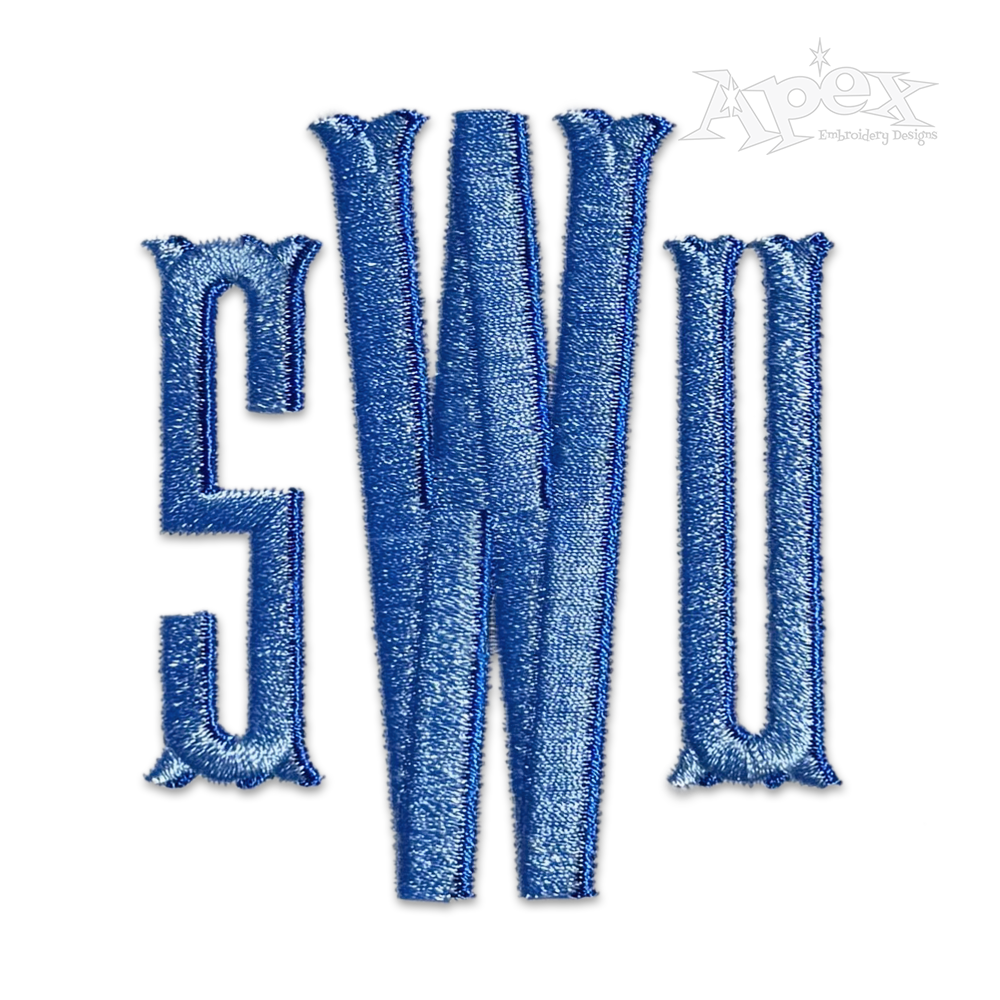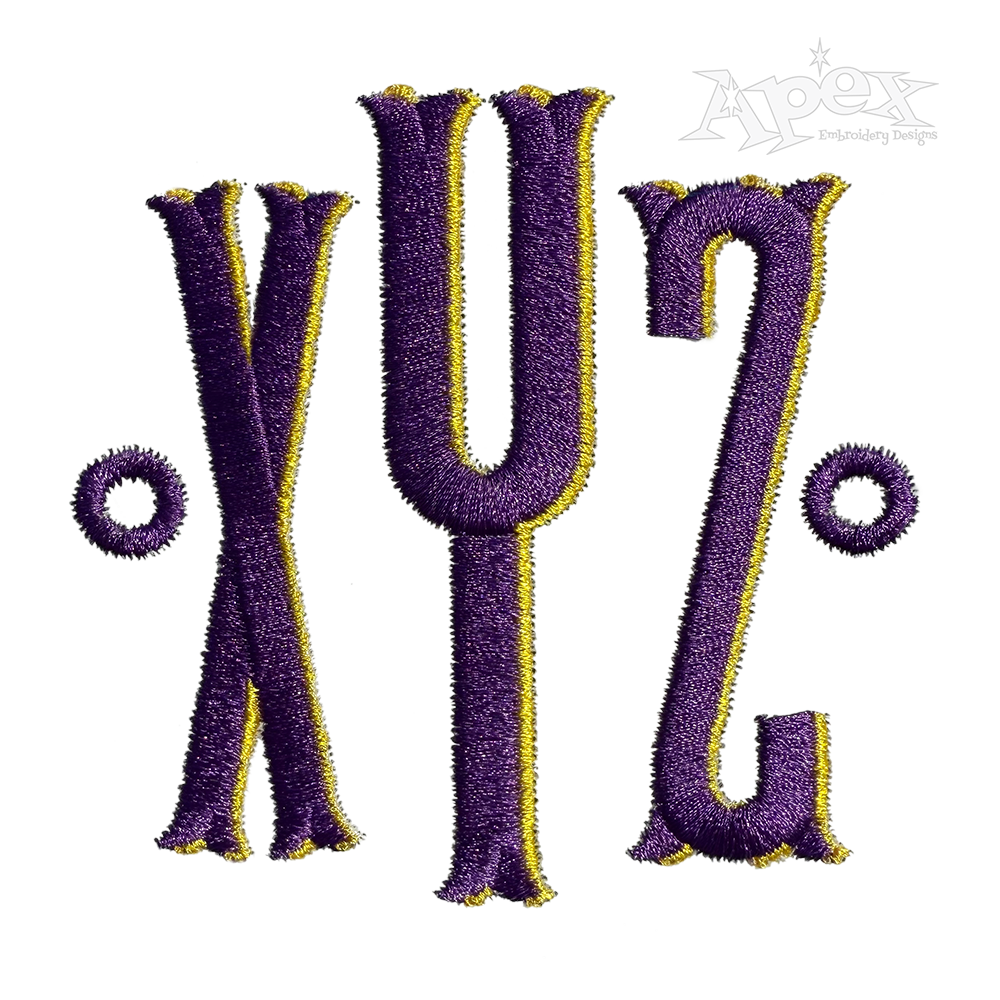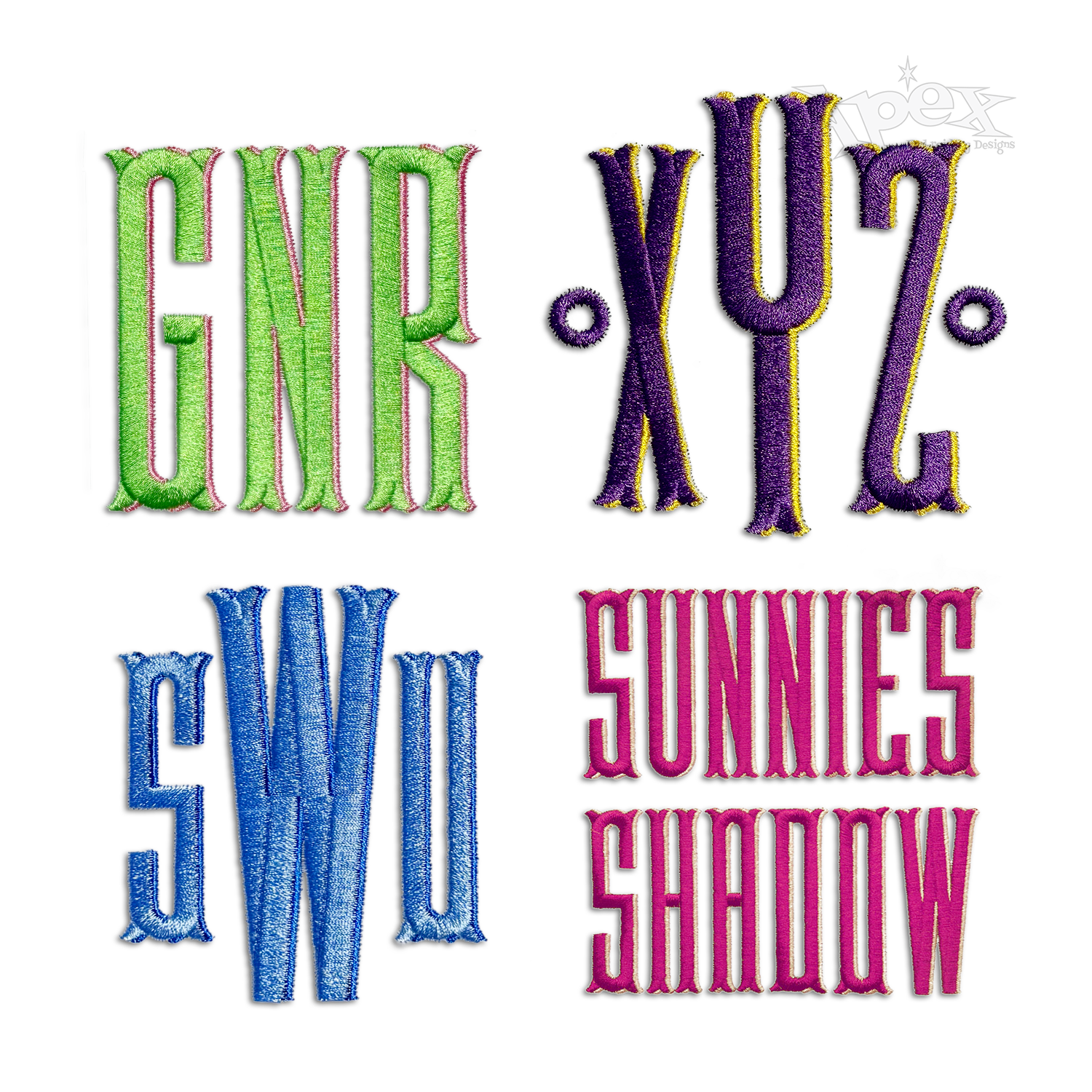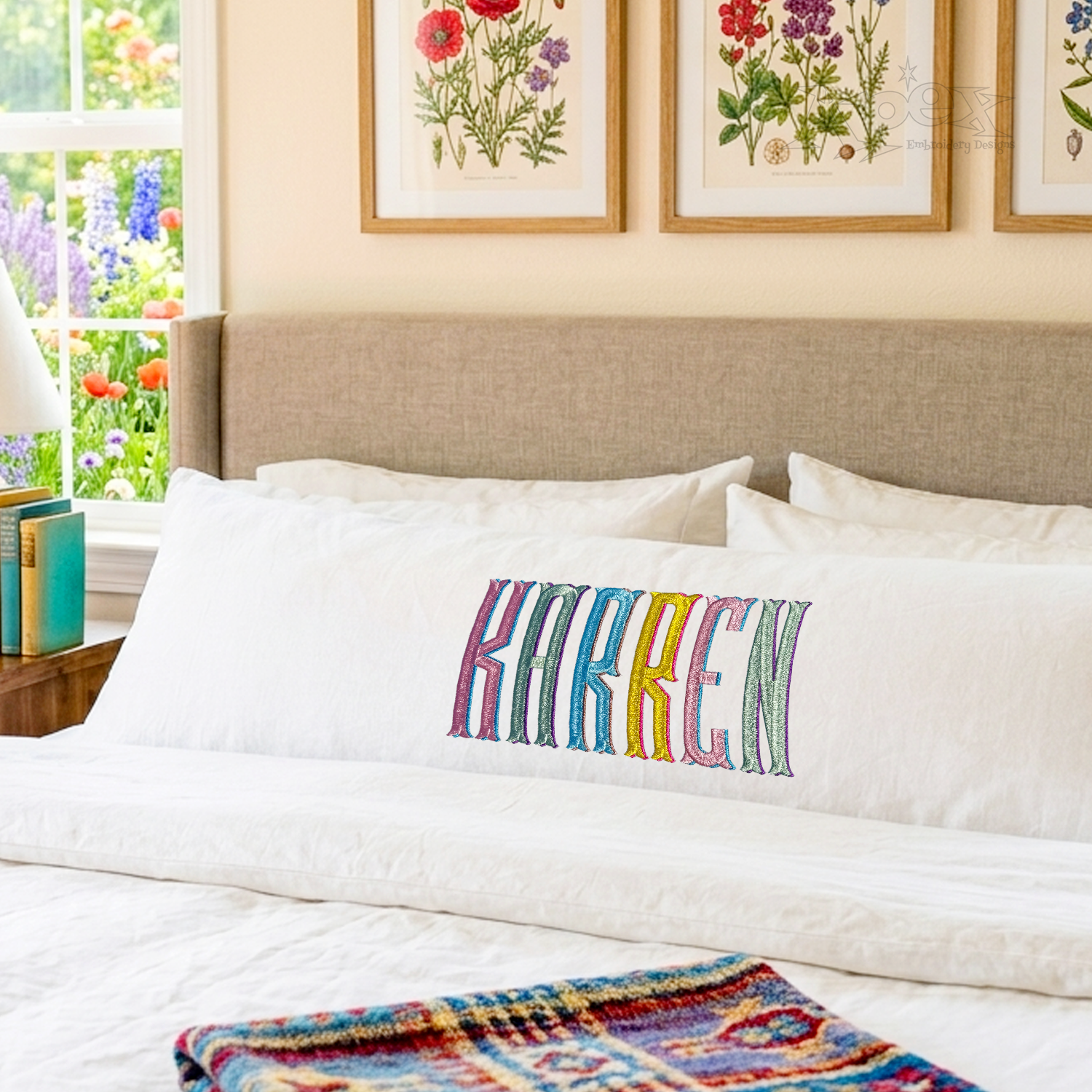
Sunnies Shadow Embroidery Font
Conceived under the golden warmth of coastal mid-century aesthetics, the Sunnies Shadow Embroidery Font brings sun-drenched cheer and bold graphic dimension to the embroidery hoop. When digitizing this alphabet, our vision was clear: to capture that effortless poolside retro optimism while engineering a modern, two-color display monogram that reads with instant clarity and tactile depth. The harmonious interplay between the jaunty foreground letterform and its crisp, offset drop shadow creates a striking trompe-l’œil effect—turning everyday heirloom embroidery, bespoke resort wear, and personalized gifting into sun-soaked works of wearable art.
Project Ideas for Sunnies Shadow Embroidery Font
With its vivacious, three-dimensional personality, Sunnies Shadow lends itself effortlessly to projects that demand a punchy, joyous presence:
- Bespoke Resort Wear & Swim Cover-ups: Stitch initials across airy linen shirts, terrycloth cabana jackets, or the brim of a woven straw sunhat for an instant vacation wardrobe upgrade.
- Heavyweight Canvas Totes & Duffle Bags: Anchor boat totes and weekend getaway luggage with high-contrast, two-tone monograms that stand up against rugged textures.
- Luxury Poolside Linens: Personalize plush, oversized velour beach towels with vibrant, sunfast thread palettes that command attention on the deck.
- Personalized Gifting & Bridal Weekends: Create matching, retro-chic cosmetic cases, travel pouches, and bachelorette loungewear tailored with each recipient’s favorite dual-color combination.
- Modern Nursery Accents: Add playful, dimensional single-letter monograms to toy bins, nursery wall pennants, and toddler quilt corners.
Due to its dynamic drop shadow, Sunnies Shadow carries built-in directional motion. To maximize its visual balance, consider these strategic placements:
- Center Chest & Front Panel: Positioned squarely on the chest of a crewneck or the centered face of a zippered tote, the balanced shadow provides natural weight that anchors the eye without feeling lopsided.
- Off-Center Corner Diagonal: When monogramming thick waffle-weave robes or picnic blankets, place the letters diagonally 4 to 5 inches inward from the corner hem to let the dimensional shadow emphasize the fabric’s fold.
- Upper Back Yoke: Utilizing the 4-inch or 5-inch size across the upper shoulder blades of denim jackets or windbreakers creates an authentic, retro athletic finish.
- Landscape Flap Positioning: On envelope-style clutch bags or fold-over tote tops, center the letters along the lower third of the flap to give the drop shadow room to breathe against the seams.
Sunnies Shadow Craft & Letterform Details
A true two-color shadow font requires far more than simply duplicating outlines; it demands rigorous digitizing mathematics to ensure the foreground and shadow interlock seamlessly beneath the needle. Every stroke in Sunnies Shadow is calibrated to prevent the heavy fabric pull that often distorts dual-pass designs. The background shadow is laid down with smooth, parallel satin fills that hug the curves of each stem and bowl, followed by perfectly timed underlay stitching to stabilize the canvas.
The foreground letter is then mapped with an opposing stitch direction. This deliberate angular contrast between the shadow underpass and the foreground crown makes the top layer visually pop, catching the light and creating real physical dimension. Generous internal corner bevels and rounded terminal caps keep the needle penetrations clean and smooth, ensuring soft turns that never bunch or push out of alignment. The result is a luminous, buttery satin finish that feels luxurious to the hand and looks effortlessly tailored on every stitch-out.